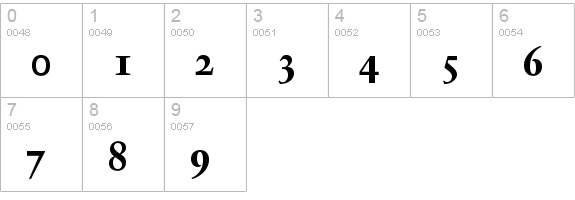
Trump Mediaeval Bold Old Style Figures Font Details
Trump Mediaeval Bold Old Style Figures is a strong, high-contrast variant in the Trump typeface family \xE2\x80\x94 well suited to headlines, attention-grabbing titles, and strong calls-to-action.
Introducing Trump Mediaeval Bold Old Style Figures, a timeless font that exudes sophistication and elegance. This exquisite typeface is perfect for those seeking to add a touch of class to their designs, whether it be for print or digital media. With its bold and distinctive letterforms, Trump Mediaeval Bold Old Style Figures captures the essence of traditional typography while still maintaining a modern edge. Each character is meticulously crafted to evoke a sense of grandeur and authority, making it ideal for headlines, titles, and logos that demand attention. What sets Trump Mediaeval Bold Old Style Figures apart is its inclusion of old style figures, adding a unique and vintage touch to any project. These figures seamlessly blend with the rest of the font, allowing for a harmonious and cohesive design aesthetic. But what truly sets this font apart is that it is available for free! Yes, you read that right. Trump Mediaeval Bold Old Style Figures can be downloaded at FontsMarket.com without any cost. This means that you can enhance your designs without breaking the bank, making it accessible to designers of all levels. So why wait? Give your designs a touch of timeless elegance and download Trump Mediaeval Bold Old Style Figures today, exclusively at FontsMarket.com. Whether you're designing for a prestigious brand, a formal event, or simply want to add a touch of sophistication to your project, this font will not disappoint.